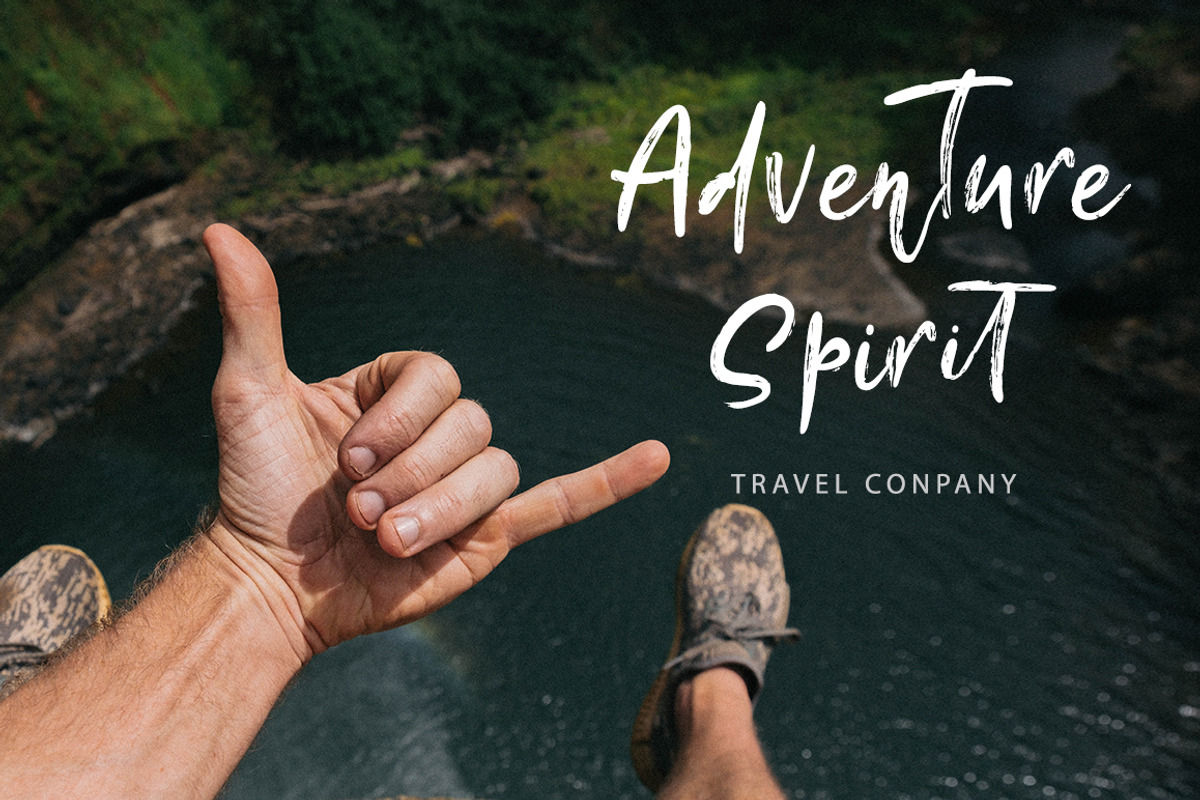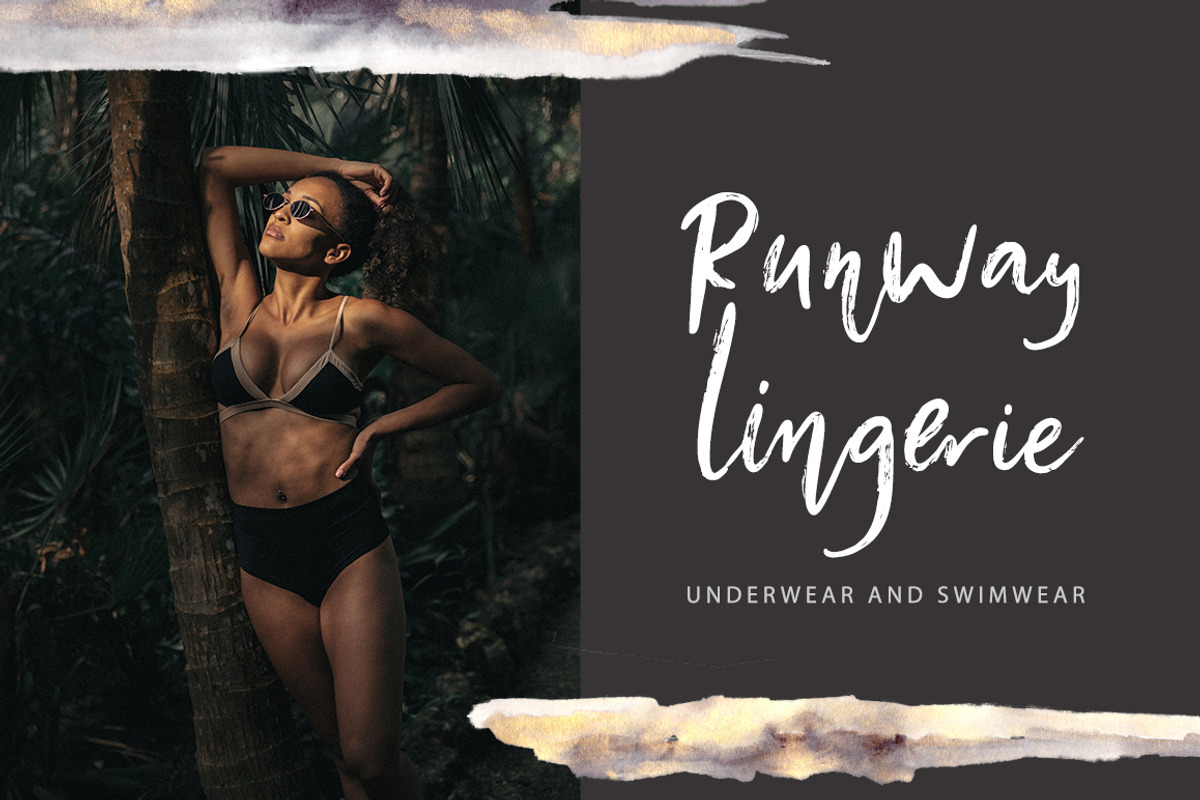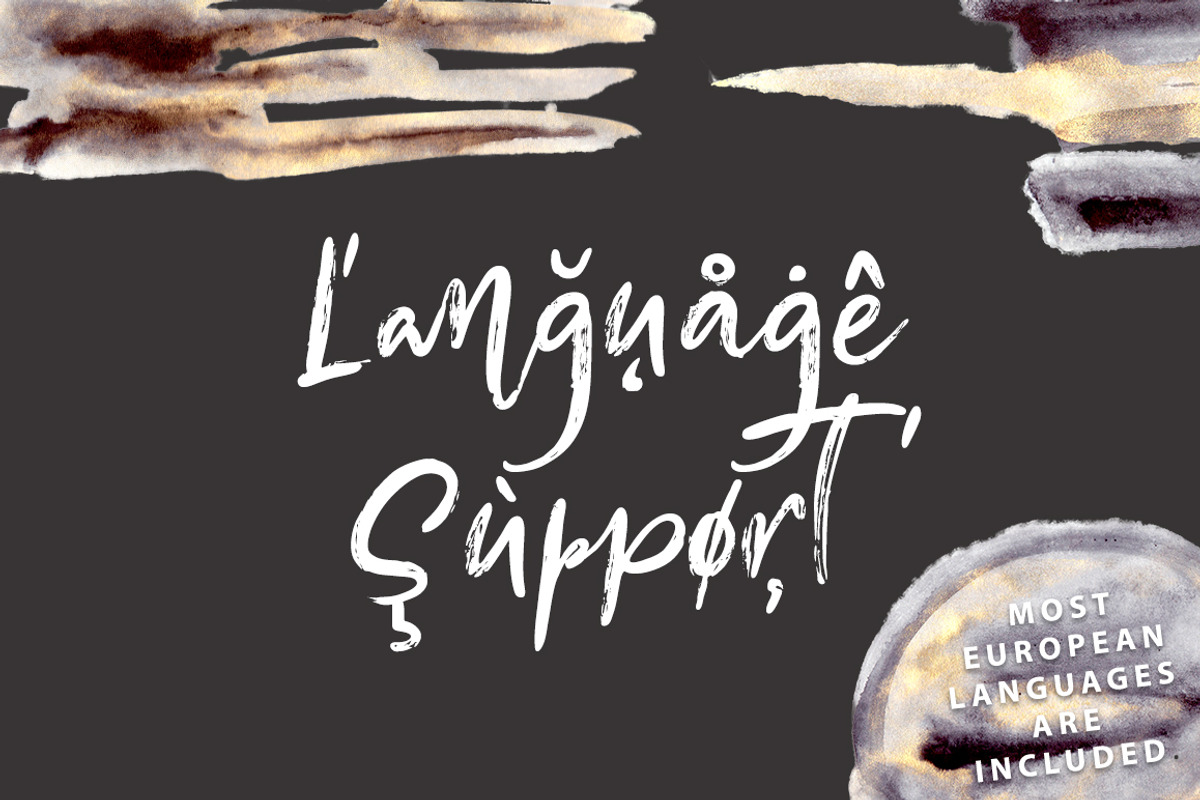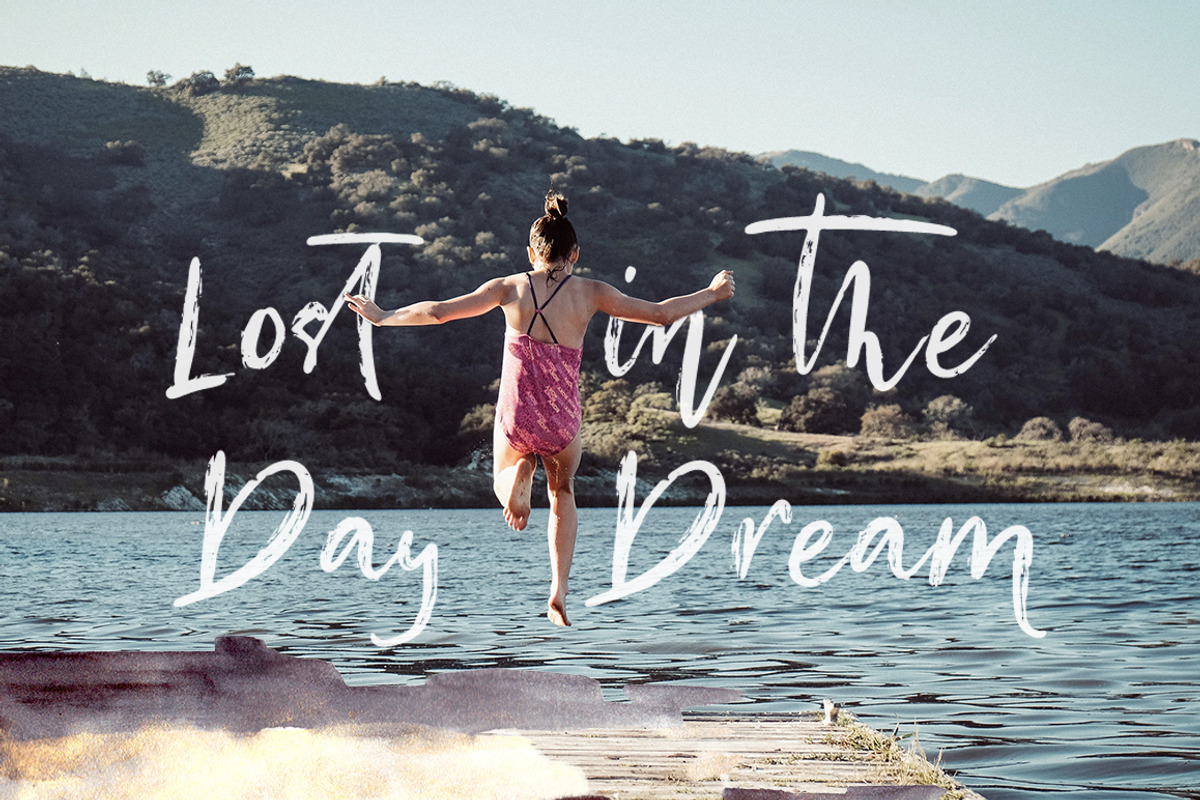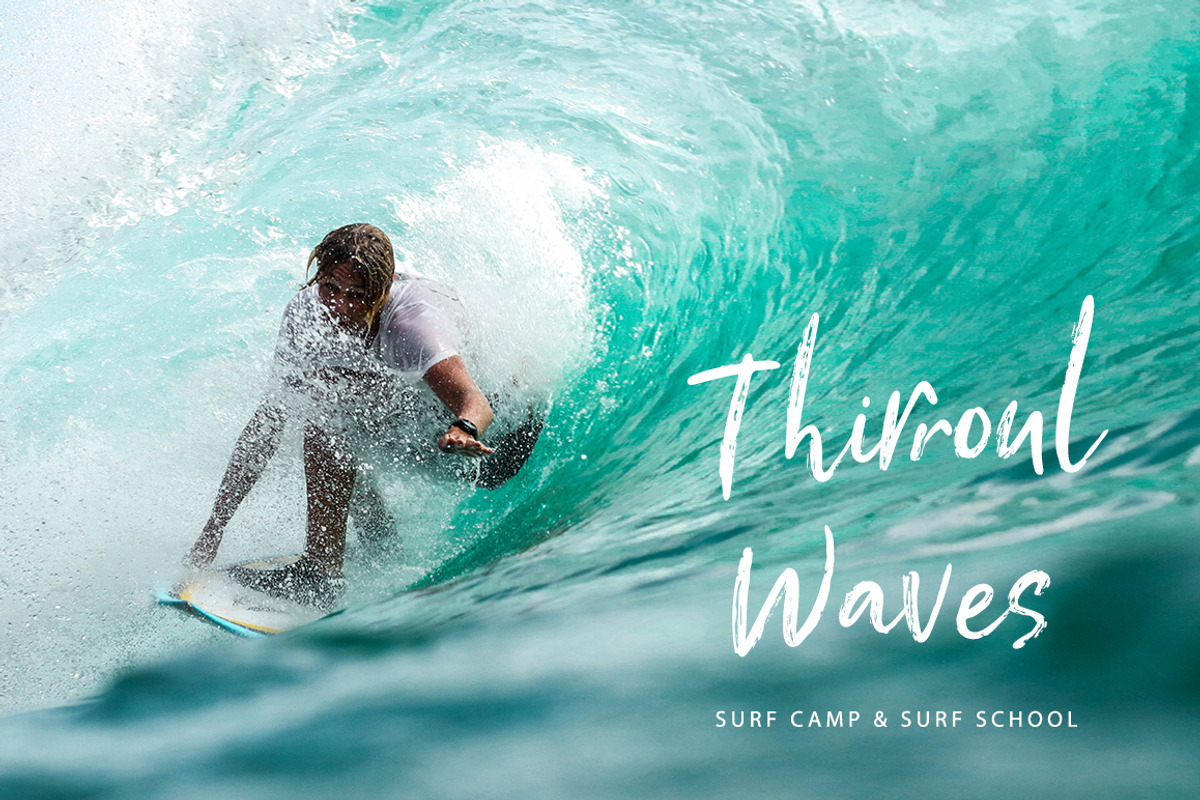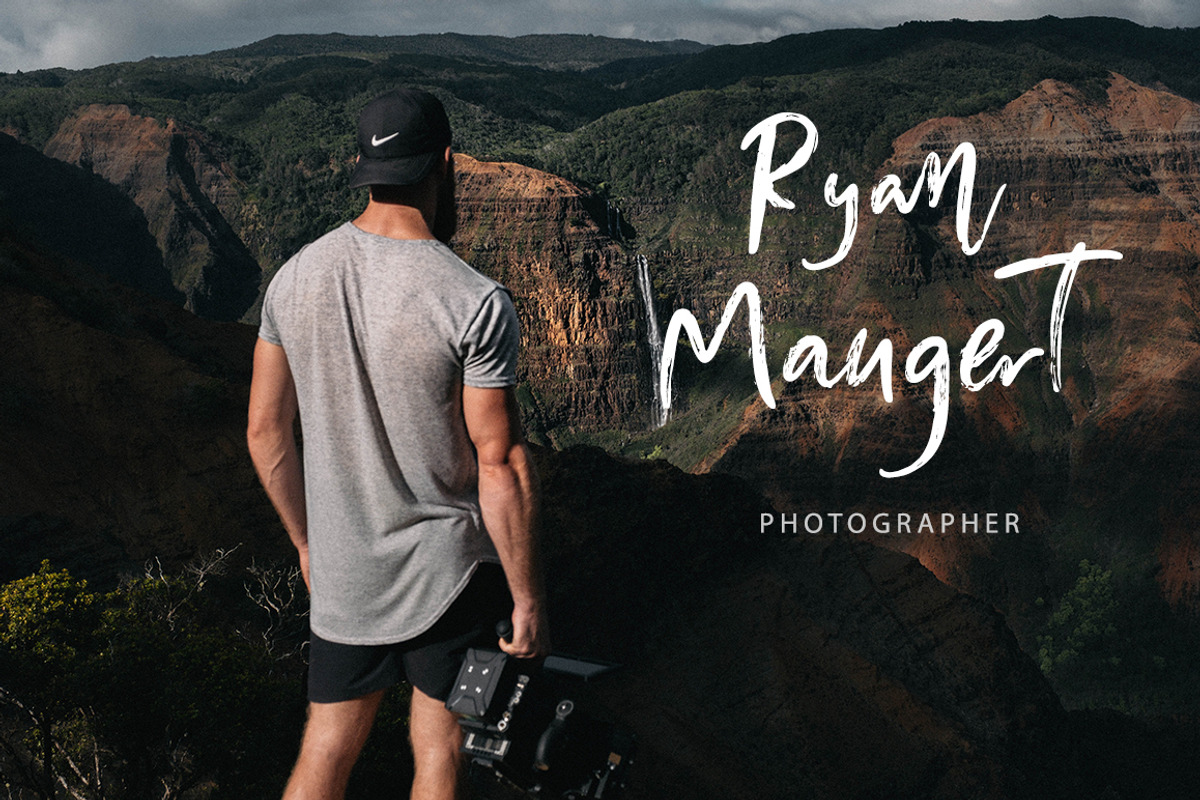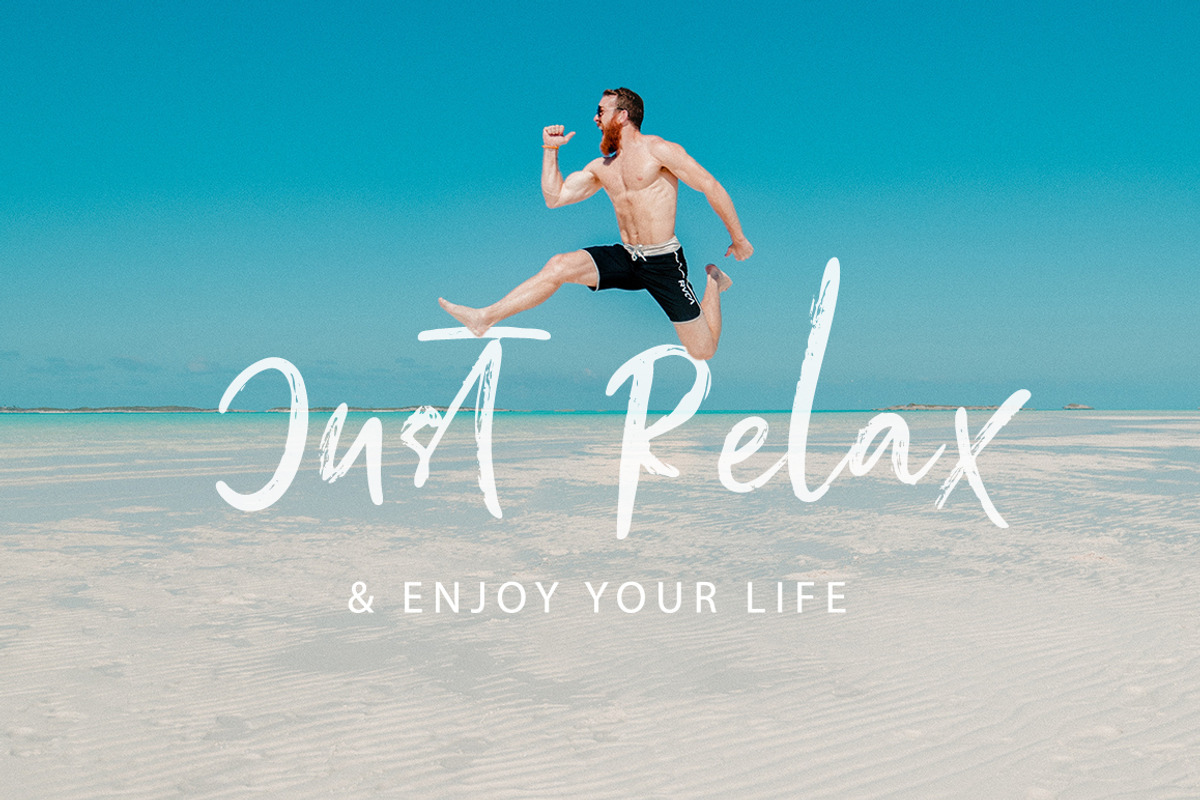
White Sand. Font + Extras.
Introducing textured brush script font ‘White Sand’.
‘White Sand’ includes full set of capital and lowercase letters, as well as multi-lingual support, currency figures, numerals, & punctuation.
It’s great for grunge or artistic projects and have amazing freedom feel.
- ‘White Sand’ includes full set of capital and lowercase letters, as well as multi-lingual support, currency figures, numerals, & punctuation